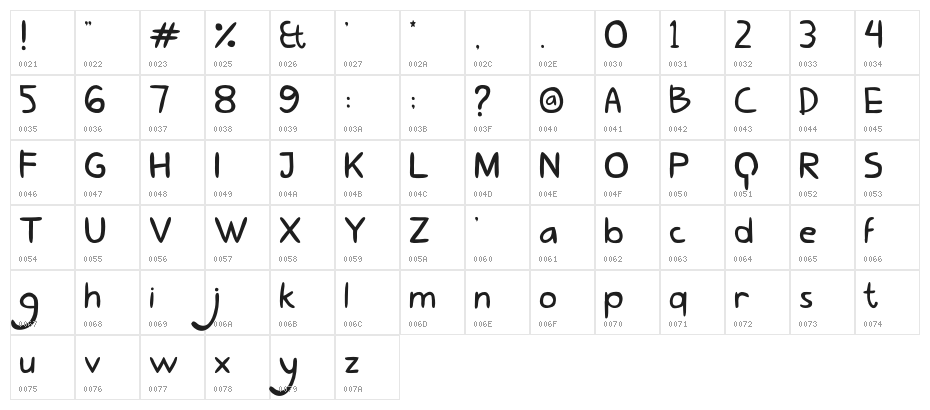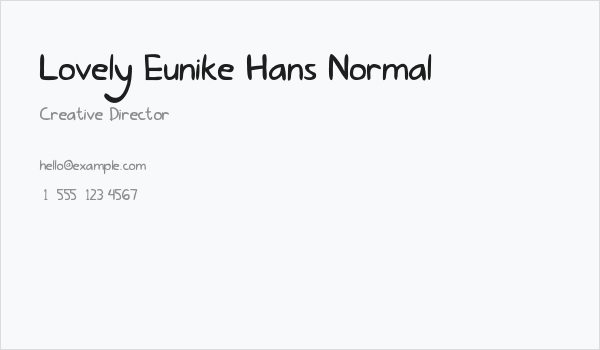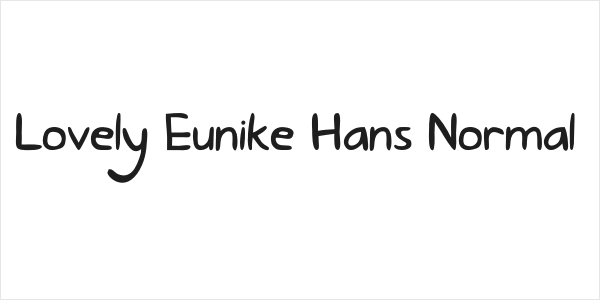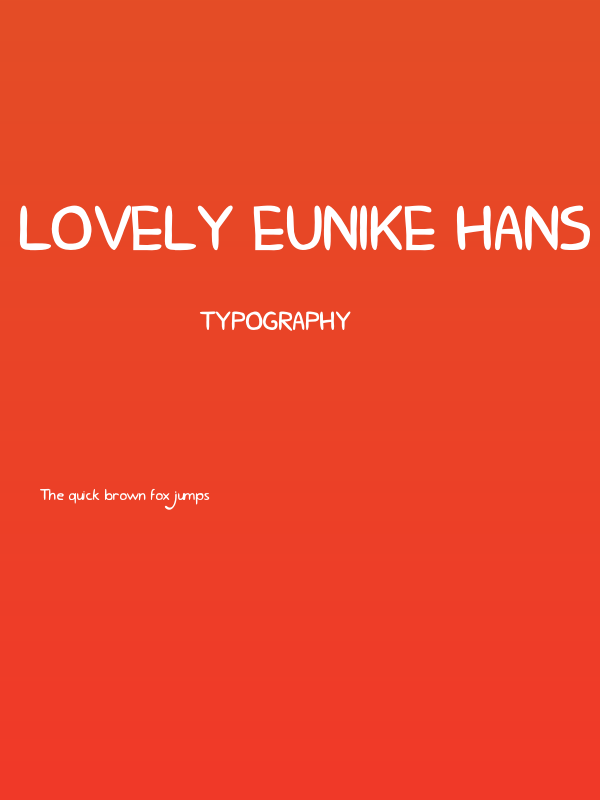
Lovely Eunike Hans Normal Font
Lovely Eunike Hans Normal Description
This playful and rounded font features a handwritten style with smooth curves and a friendly appearance. The characters are evenly spaced, providing a balanced and approachable look. The uppercase and lowercase letters maintain a consistent flow, while the numerals and special characters complement the overall design. Its informal and casual aesthetic makes it suitable for projects that require a personal touch or a creative flair. The font's legibility and charm make it versatile for various applications, from children's books to greeting cards.
| Proposed Projects | Ideal for children's books, greeting cards, playful branding, and creative invitations. |